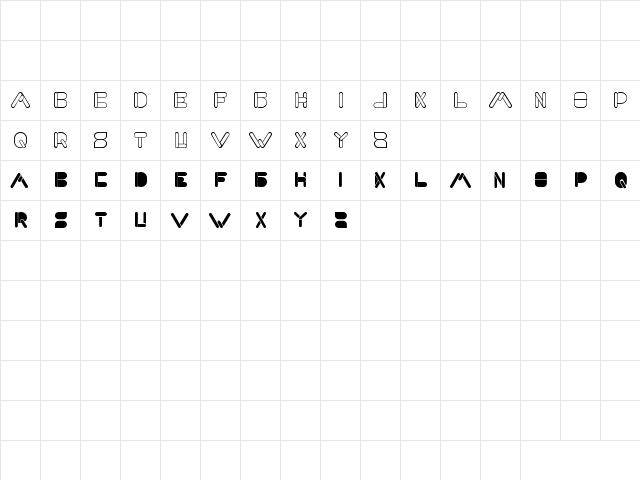
MAXIMUM KILOMETER Regular
Design Context for MAXIMUM KILOMETER Typeface
MAXIMUM KILOMETER takes a measured approach to typography — its balanced proportions and neutral character make it a reliable workhorse for both digital and print work.